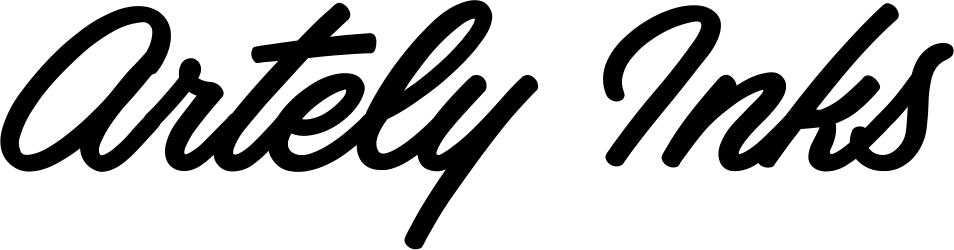
Artely Inks Font
Artely Inks is an italic-style script font that can be occasionally cursive as well, leading to a sequence of delicate characters that’s a bit thicker than regular calligraphy typography, but just as breath-taking.
There’s just the fact that it may be a bit hard to read. Perfect for greeting cards and invitations, Artely Inks also pairs well with certificates, website headers, books, and other projects with elegance being an essential ingredient in their design.